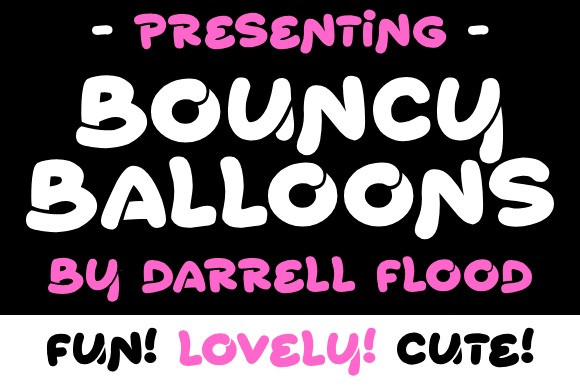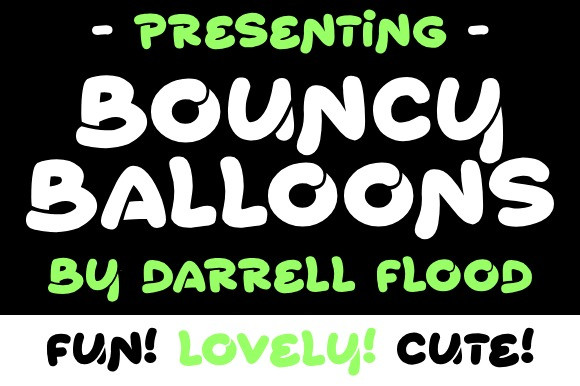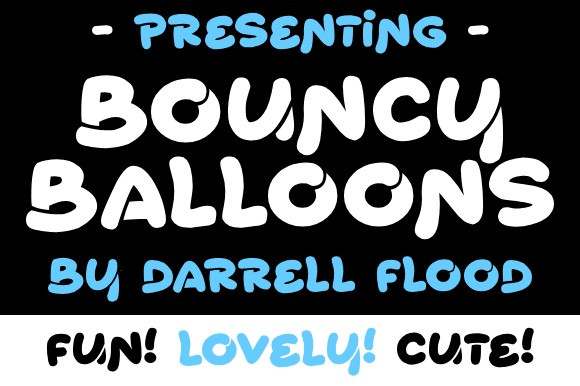
Bouncy Balloons Font
Bouncy Balloons Font – A playful, roundy font in a balloon-like style! Perfect for birthday parties, kids events, and general lighthearted use!